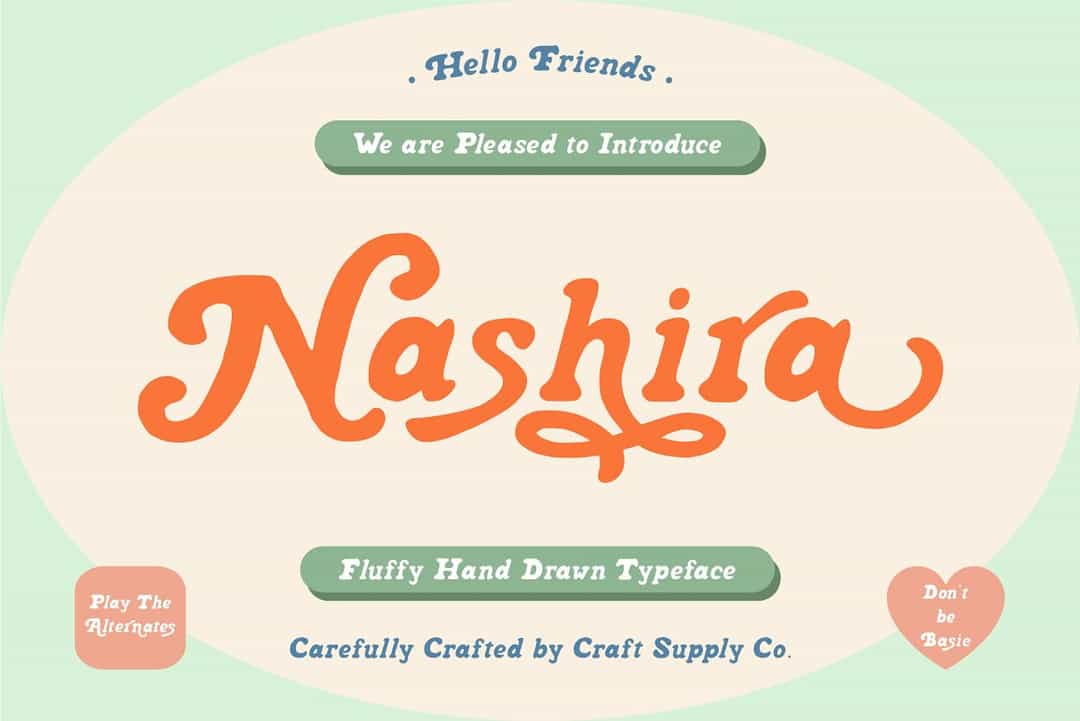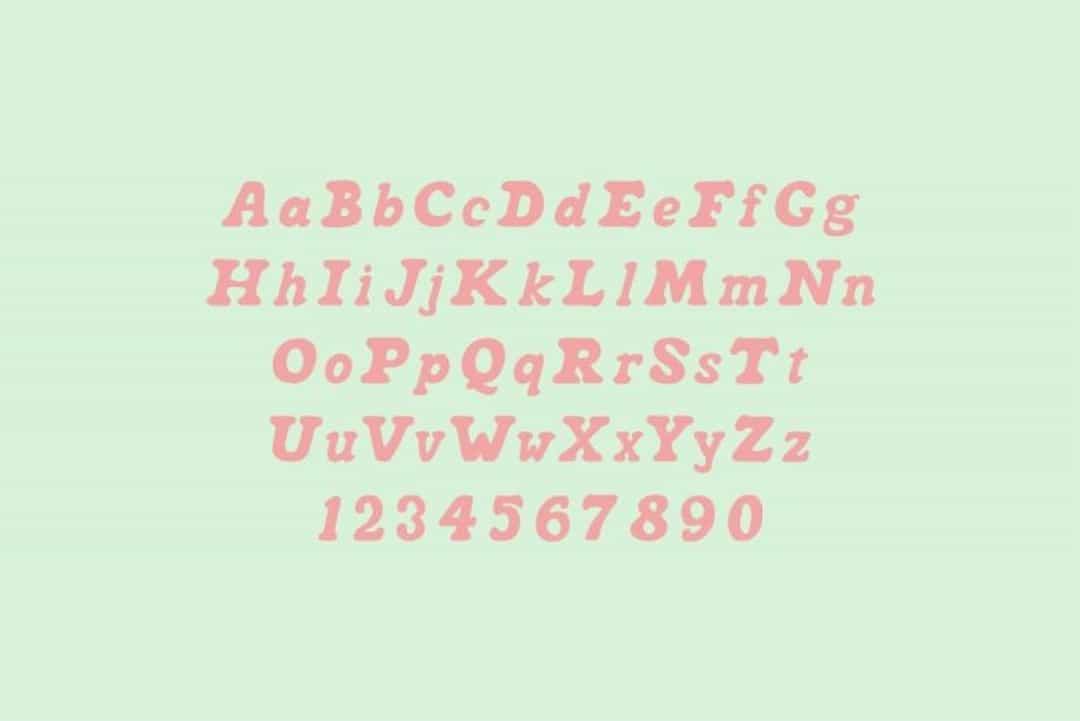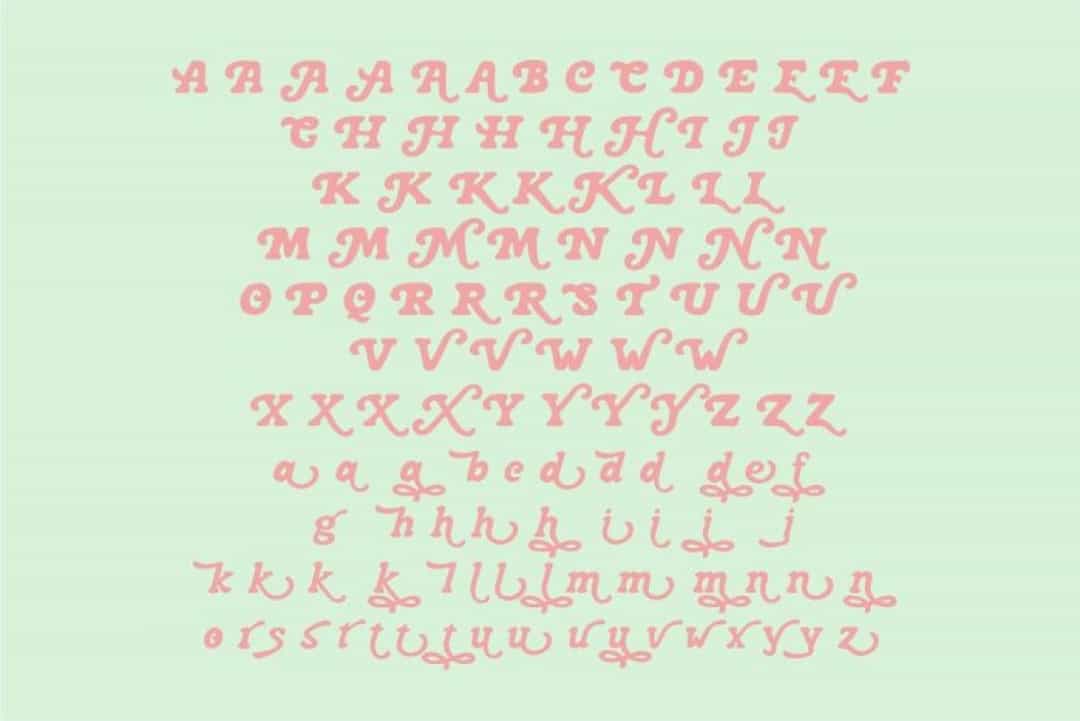
Discover Nashira Font, part of the Serif Display collection—a versatile and unique font perfect for adding a personal touch to your projects. Download it for free and enjoy crafting designs with style, from invitations to social media posts. This font is available exclusively for personal use, giving you the freedom to create without limits. Unlock your creativity with Nashira Font today!
Nashira The Fluffy Hand-drawn Typeface will add vibrancy and visual interest to all your designs – be they print materials or digital. Give this font a try now for dynamic results! Just think how vibrant and stunning your work will become once you put Nashira The Fluffy Hand-drawn Typeface into action!